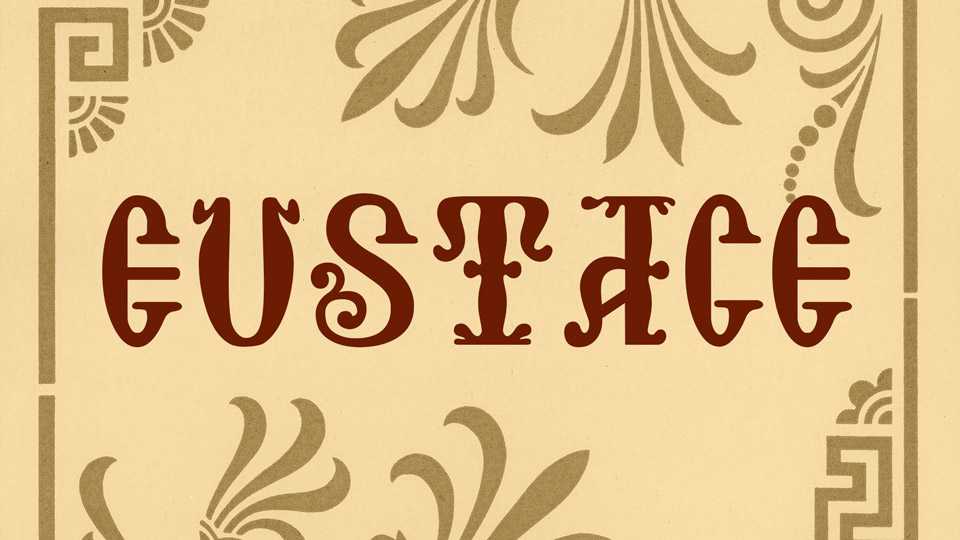
Download Eustace font, a decorative antique typeface in the style of byzantine woodcut initials, often used in Italy for Greek religious publications from the 1400s to the modern era.
Designer: Greek Font Society